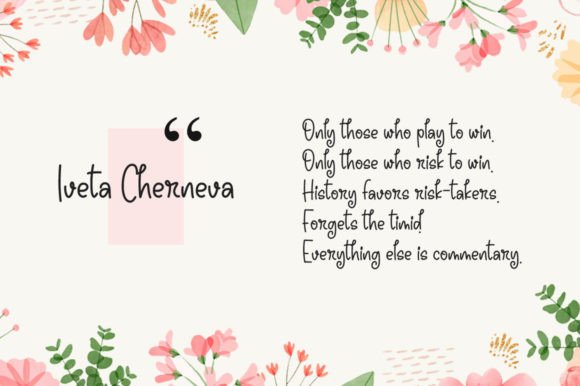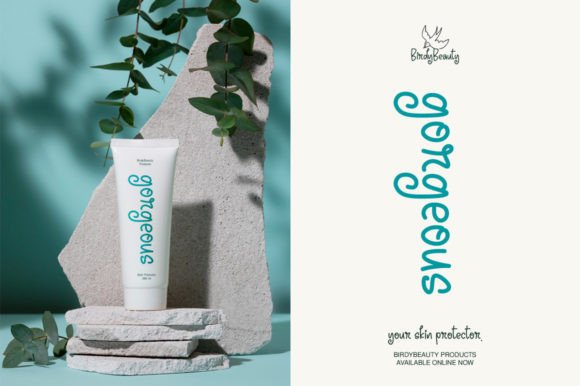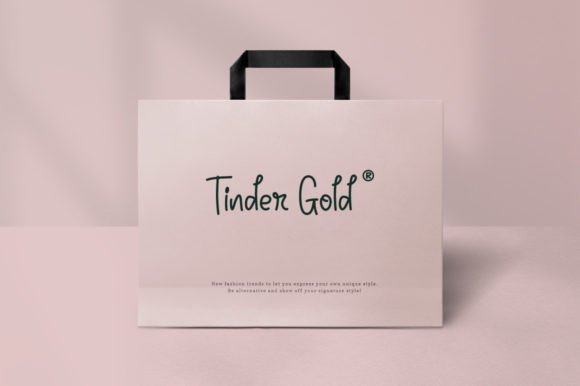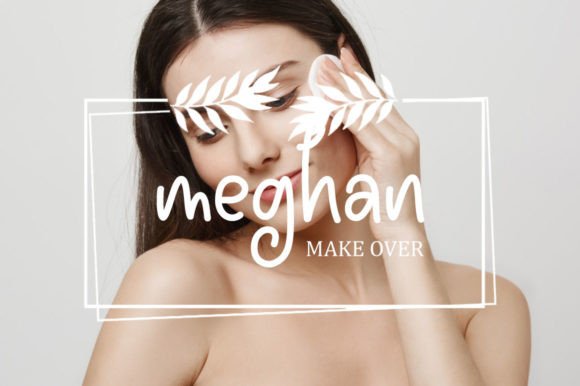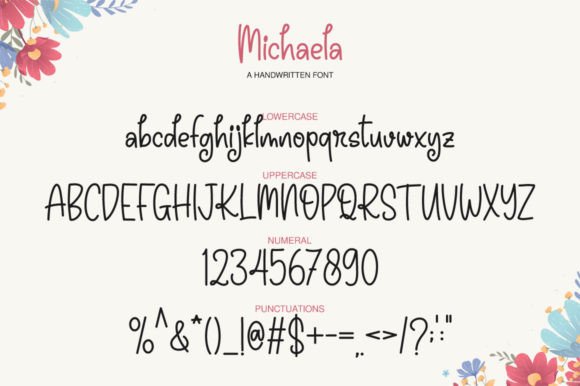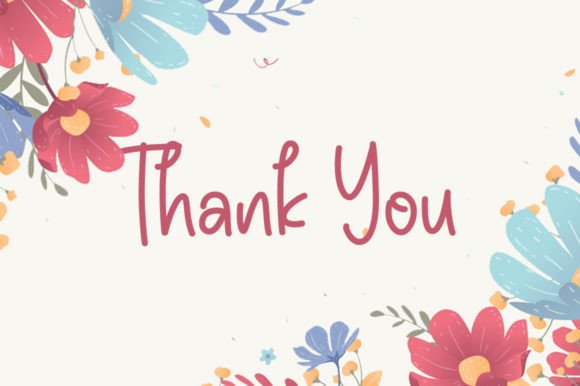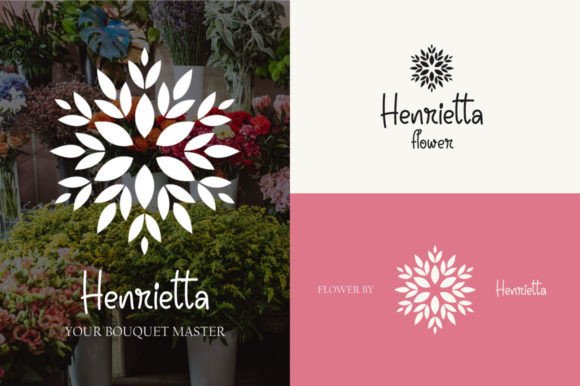
Michaela Font
About Michaela Font
“Michaela” is a cute and casual handwritten font that exudes a delightful and personalized touch, making it an excellent choice for a wide range of creative projects. Its dainty and joyful script style is particularly well-suited for writing wedding invitations, cards, and any design that benefits from a romantic and customized aesthetic.
The charm of “Michaela” lies in its cute and casual script. Its well-designed characters create a visually engaging and heartfelt experience, making it an ideal choice for projects that aim to convey a sense of joy, romance, and personalization.
One of the standout qualities of “Michaela” is its versatility. Whether you’re using it to craft wedding invitations that capture the essence of romance, create heartfelt cards for special occasions, or add a personalized touch to your various designs, this font seamlessly integrates into your creative vision.
This font’s dedication to providing a cute and joyful look to your projects sets it apart. Whether you’re working on personal or professional endeavors, “Michaela” brings a sense of romance and customization to your work that resonates with a diverse audience.
In summary, “Michaela” is more than just a font; it’s a delightful and personalized creative tool that can make your designs radiate with joy and romance. Whether you’re a professional designer seeking a font that adds a heartfelt touch or an enthusiast passionate about crafting and design, “Michaela” is here to enhance your projects with its cute and casual script. Embrace the charm of “Michaela,” and watch your creativity flourish with personalized and romantic designs.